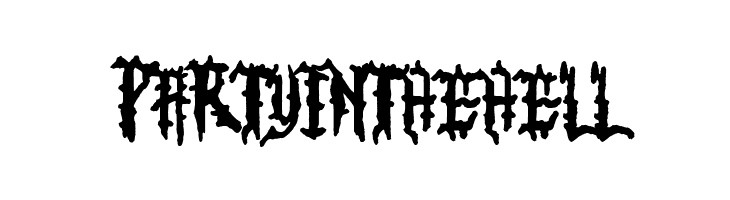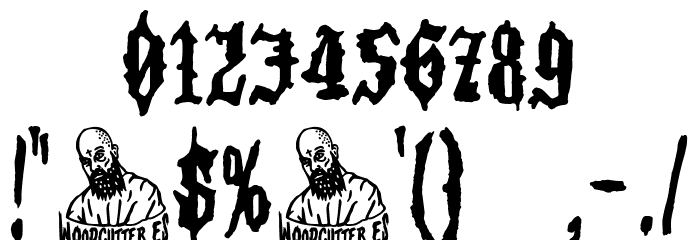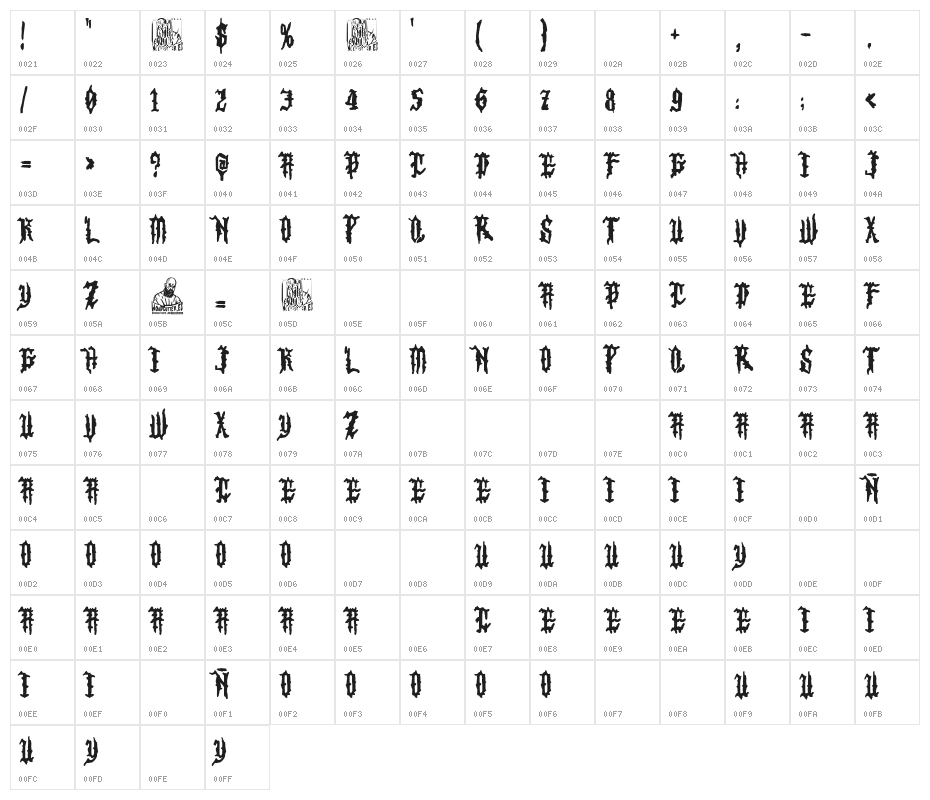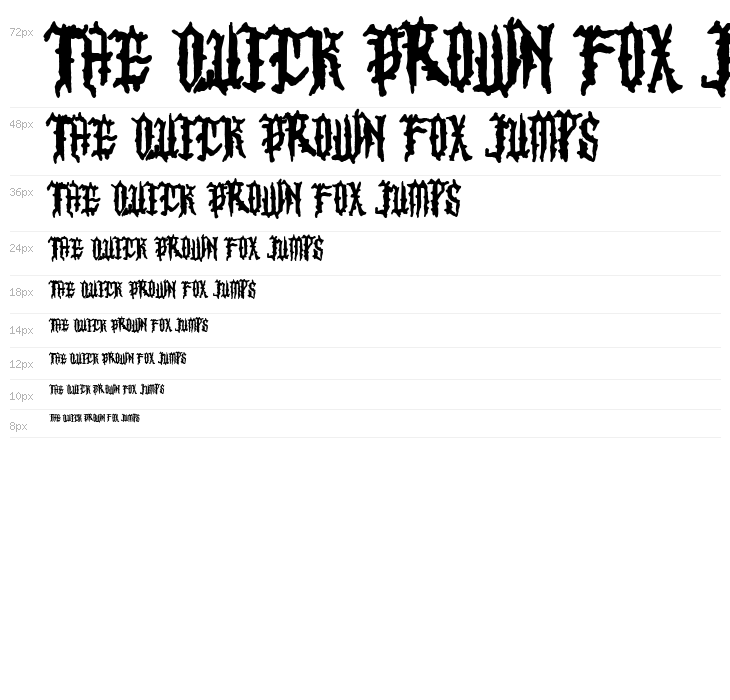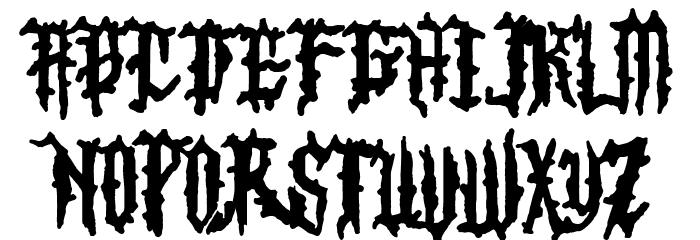
Party in the Hell Font
Party in the Hell Description
A highly decorative, jagged, and distressed display font with irregular, flame-like edges, evoking a chaotic and horror-inspired aesthetic. The characters are bold and uppercase, with exaggerated forms and uneven strokes, creating a dramatic and intense visual impact.
| Overall Style | Decorative, Horror, Grunge |
| Use Case | Headlines, Posters, Logos, Event Titles |
| Proposed Projects | Halloween posters, horror movie titles, event flyers, album covers, themed party invitations. |